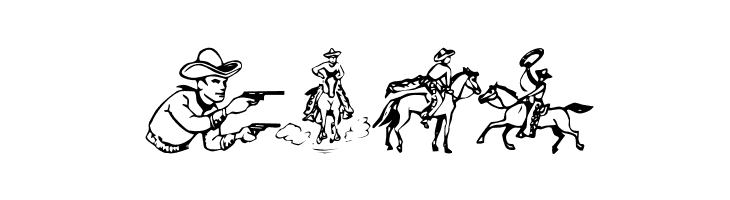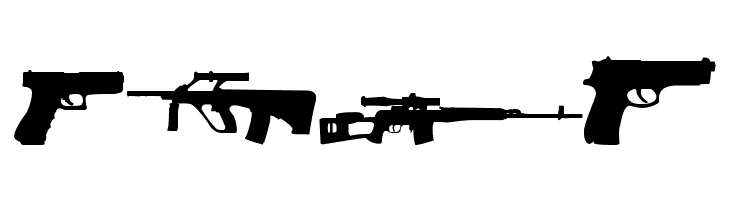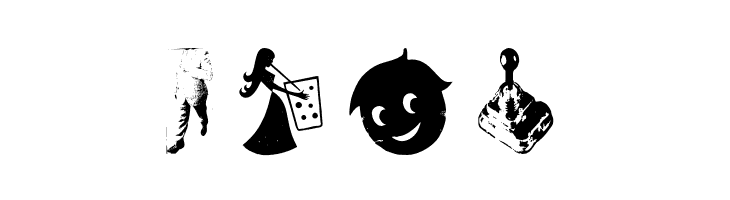
A display font made of weapon silhouettes instead of standard characters.
A pictogram dingbat font with eclectic, illustrated symbols.
Western-themed decorative icon set with bold, detailed silhouettes.
An illustrative and decorative font with themed graphic characters.
A collection of vintage-style, distressed icons and symbols with a grunge texture.
A collection of cowboy-themed clip art illustrations, not a traditional font.
A military-themed dingbat font with weapon and vehicle icons.